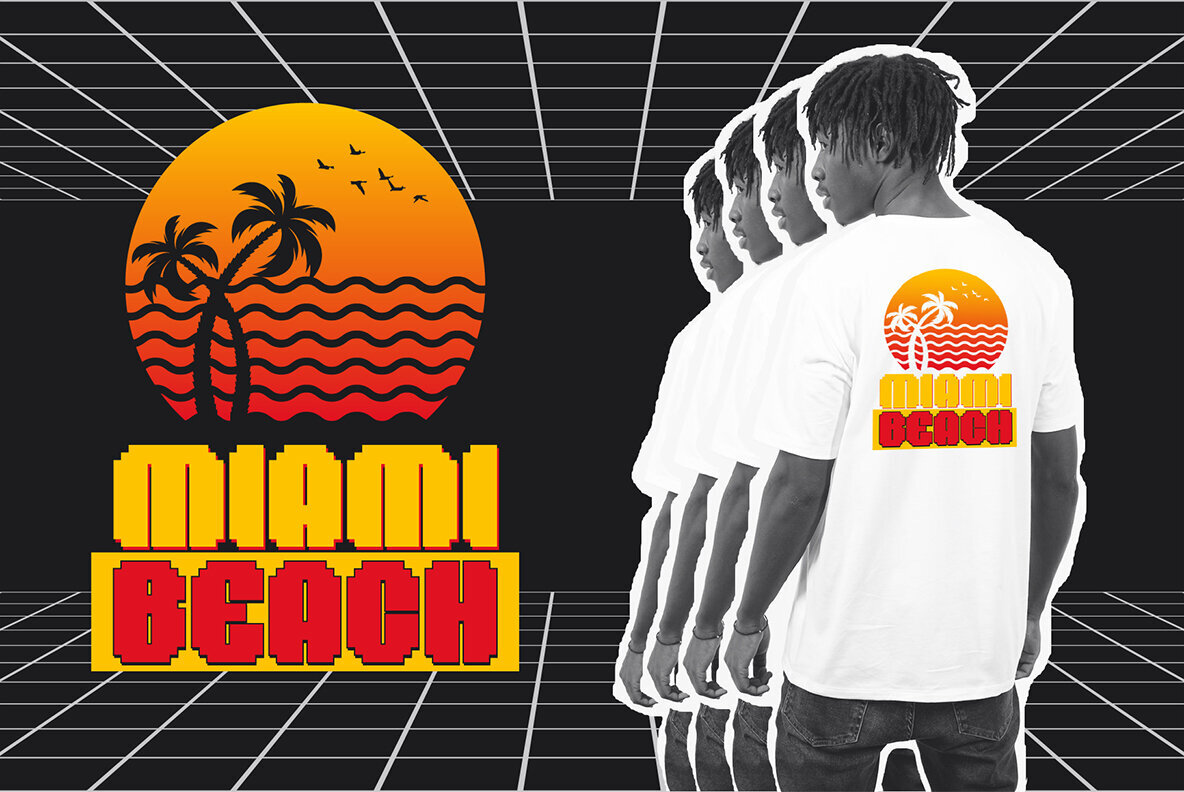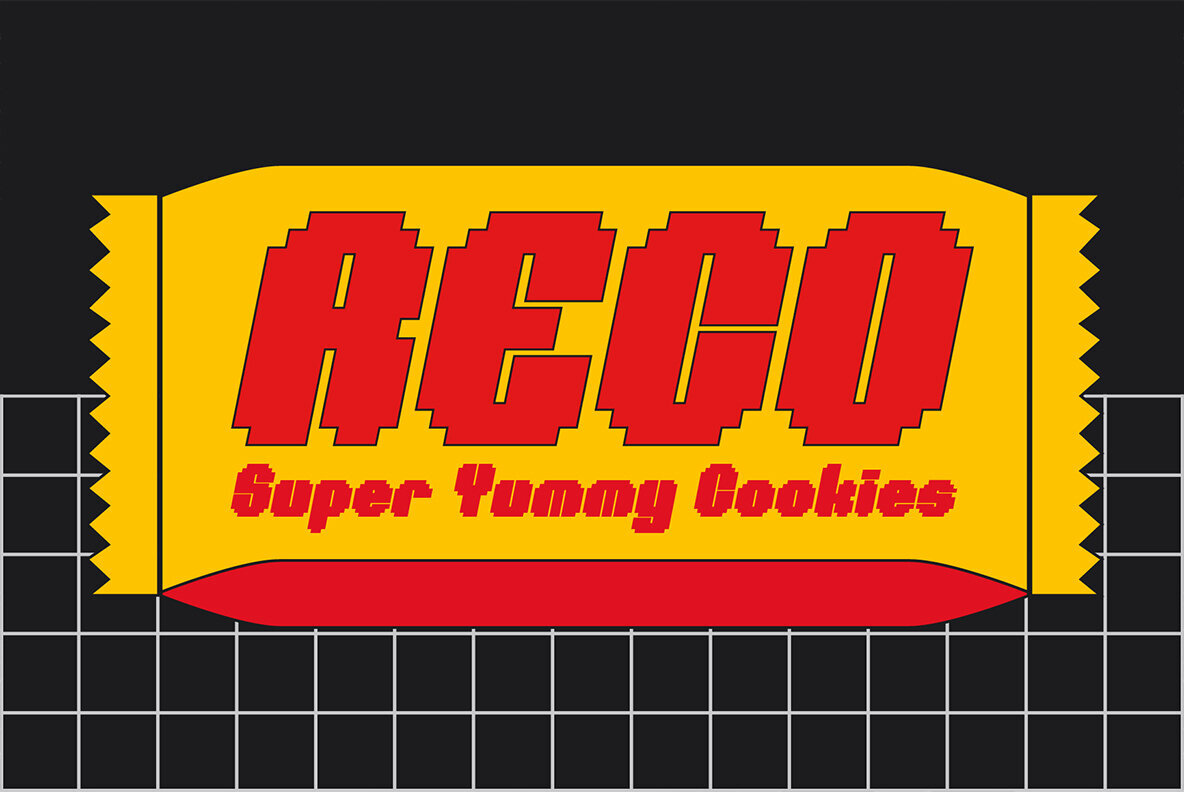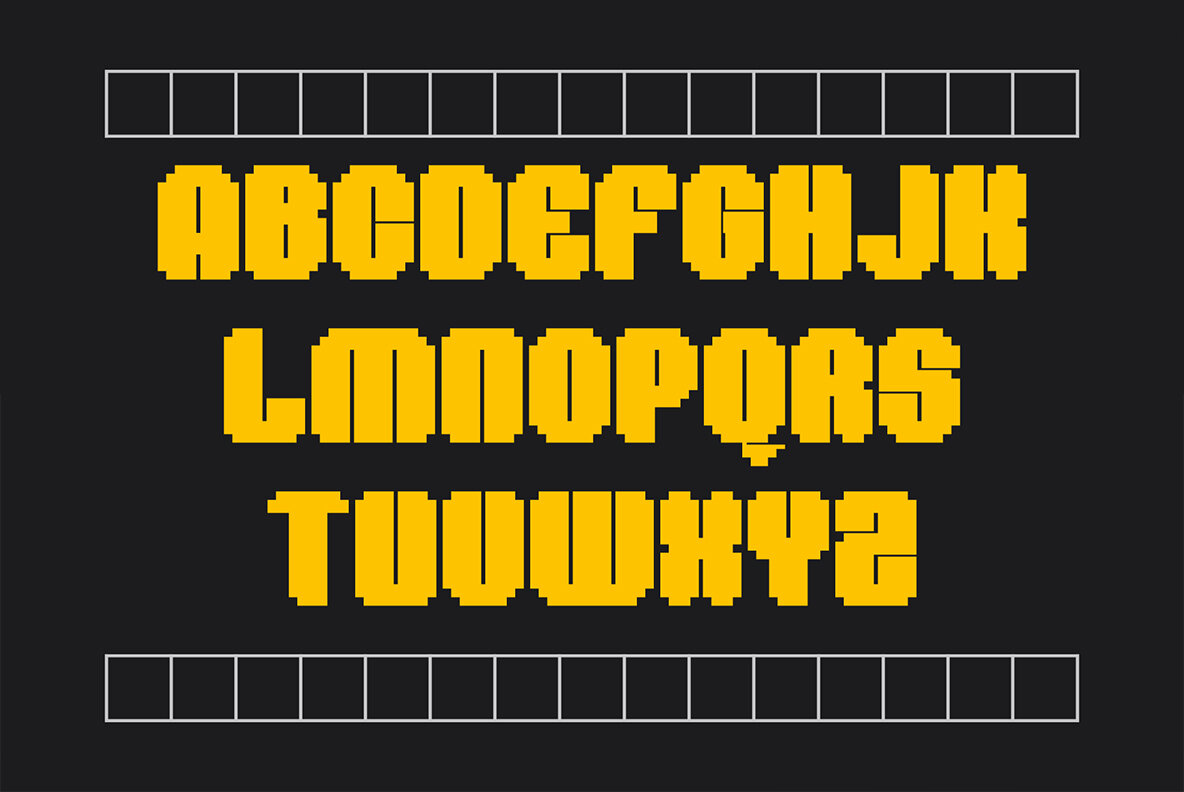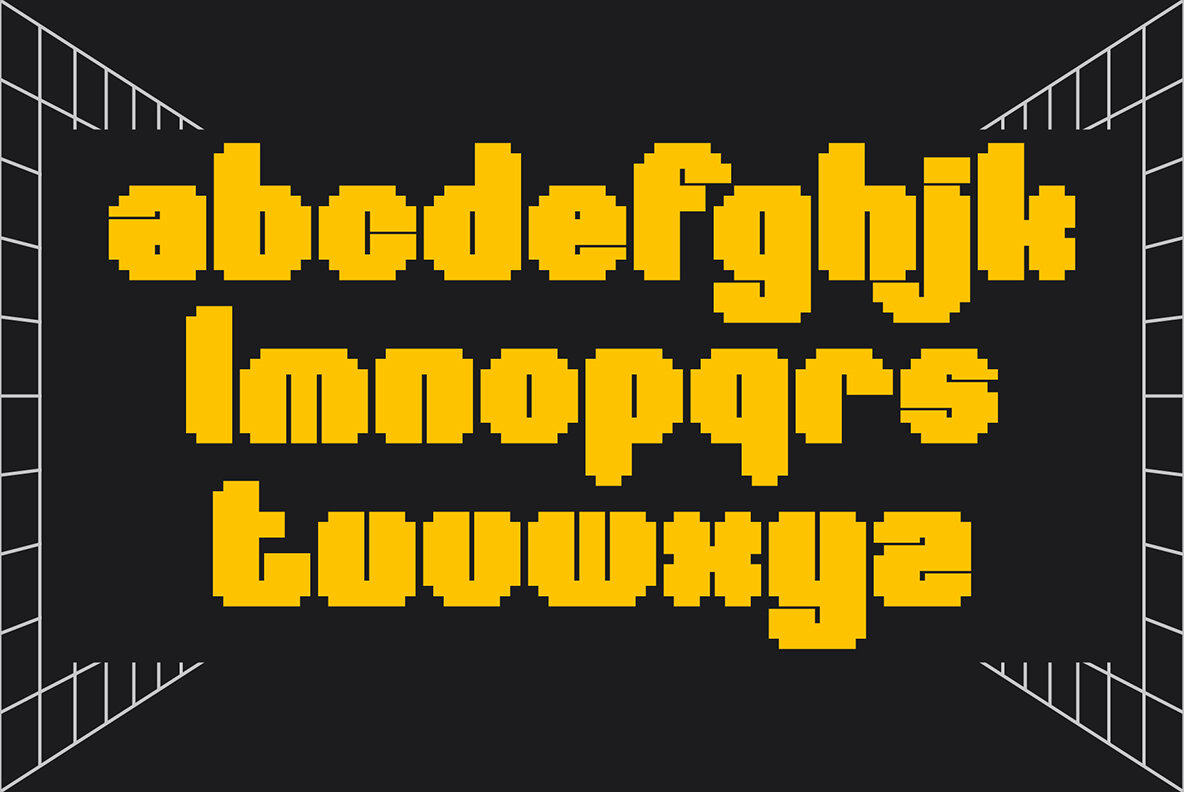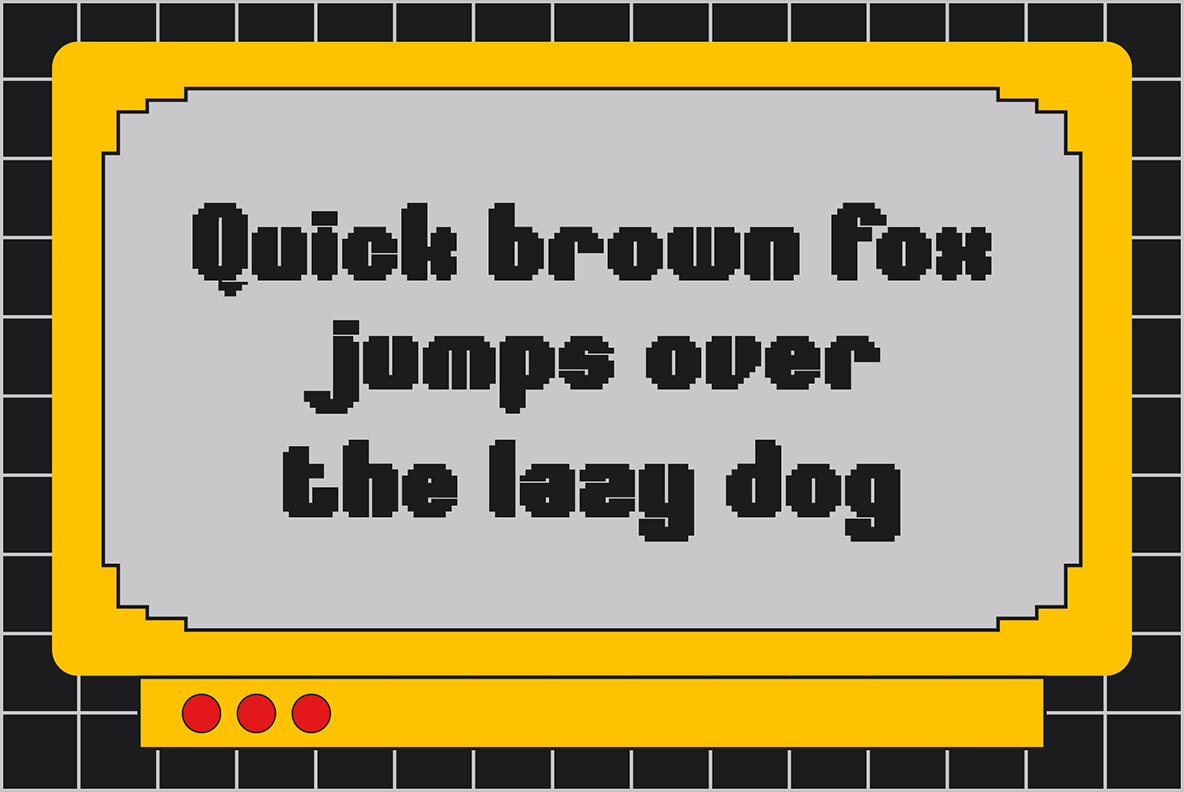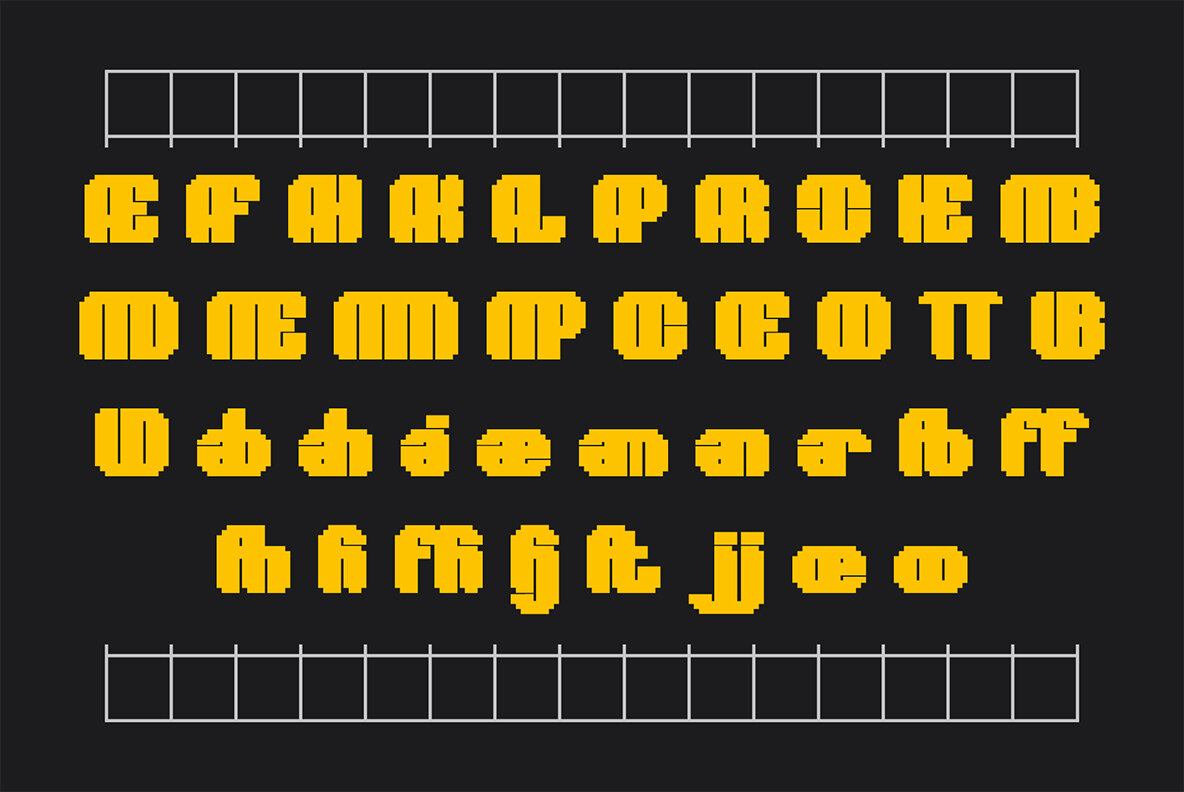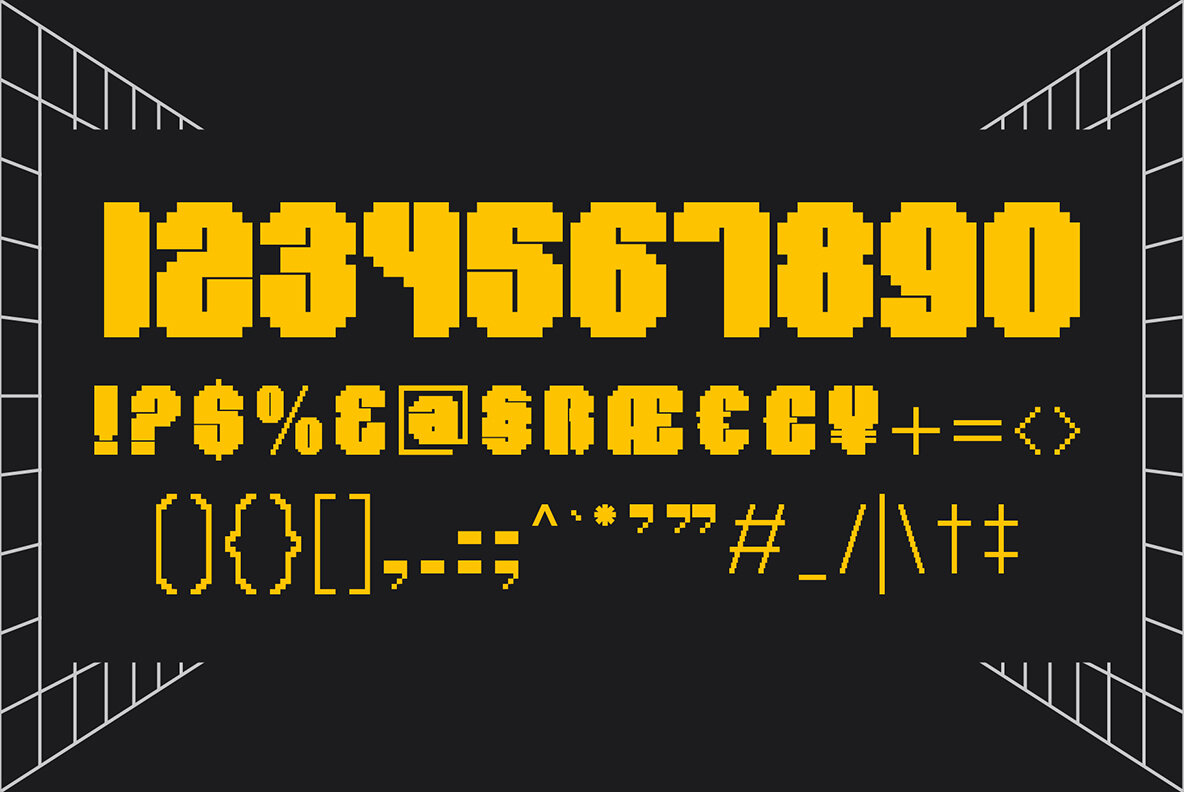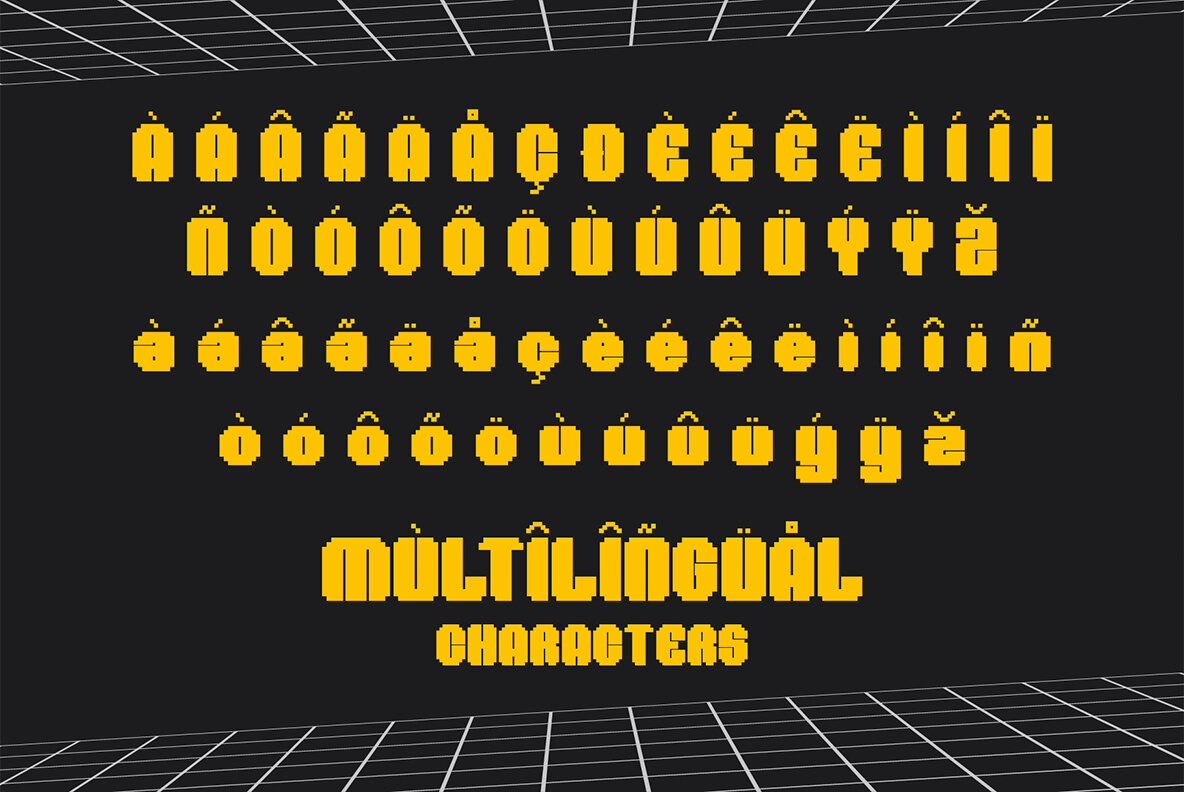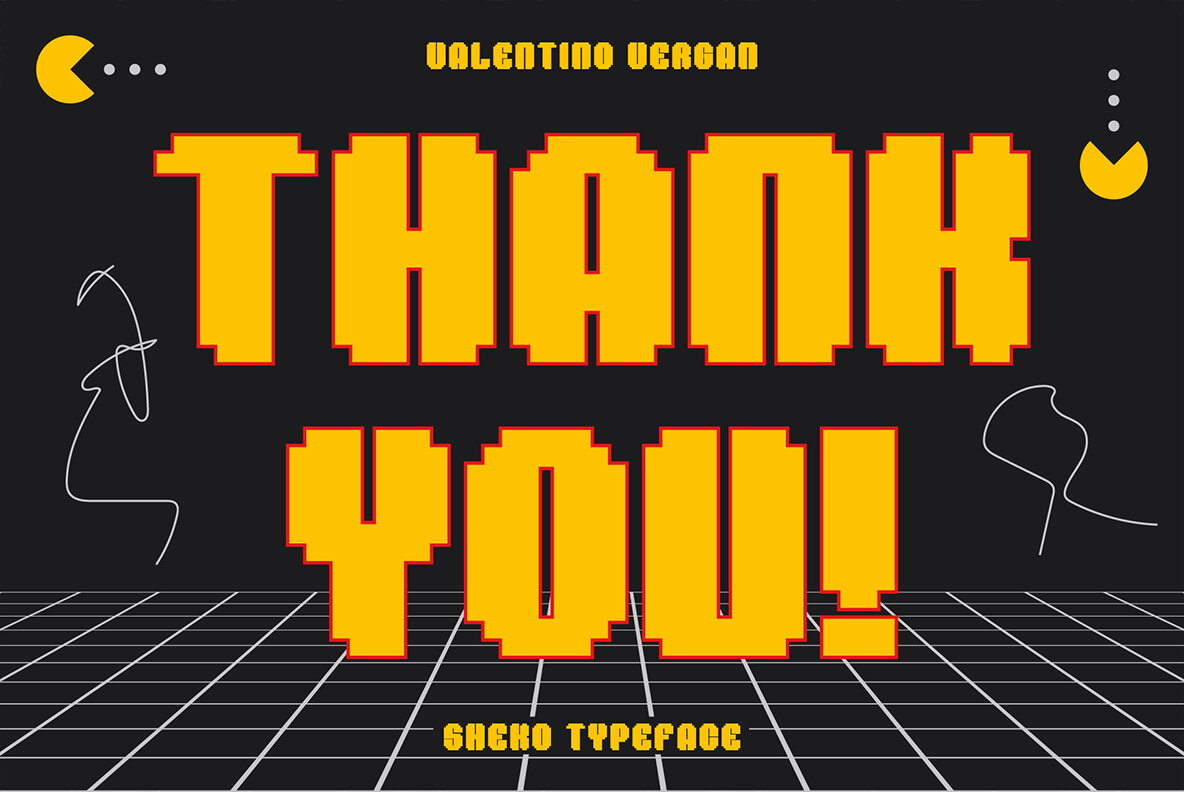
Sheko Font
Sheko is a creative headline pixel font that looks great on any retro design. Sheko is designed to be very eye catching, it’s tight kerning and bold letters makes it great for bold headline vintage designs. You can use Sheko for a wide range of projects, including print and web.